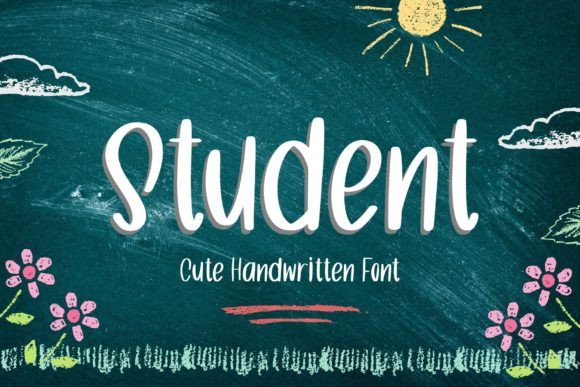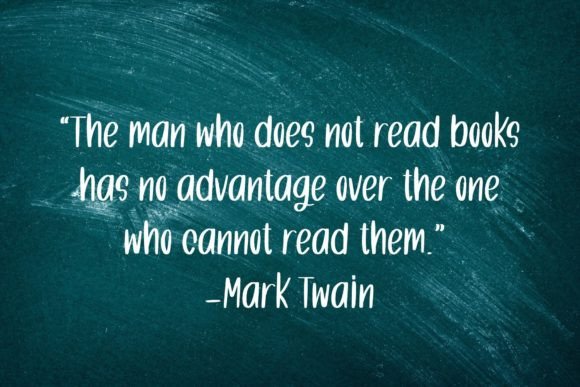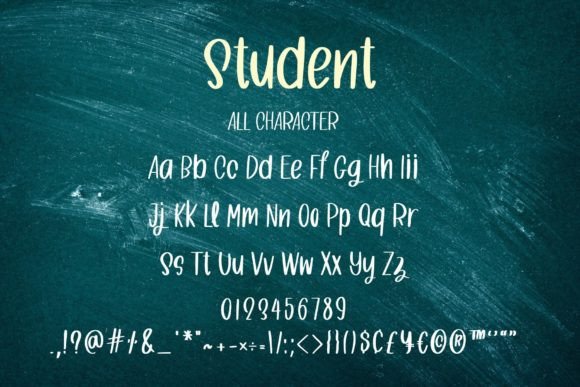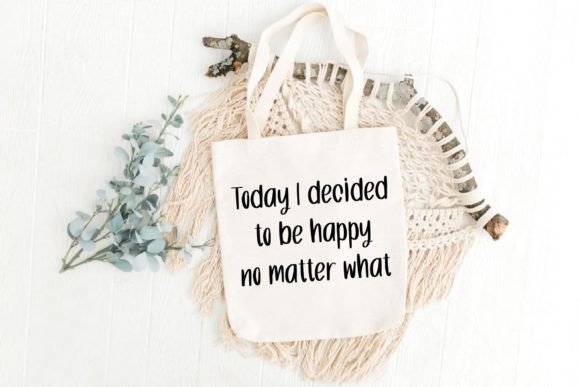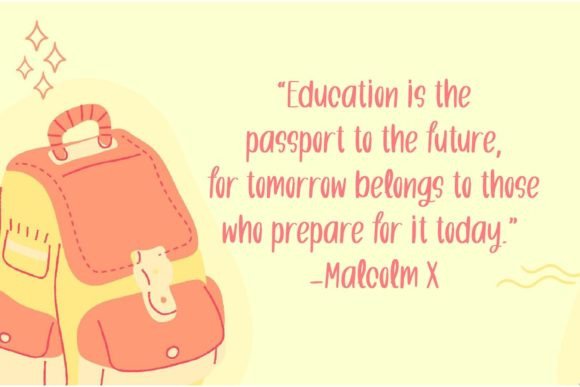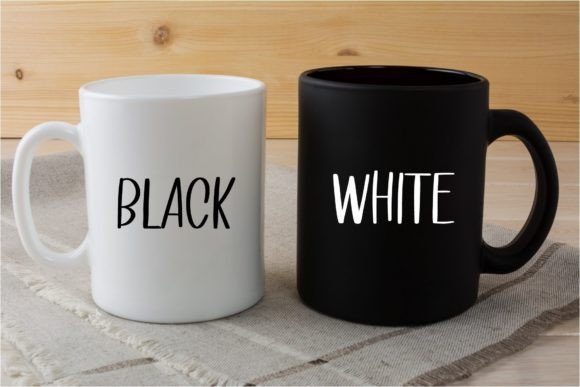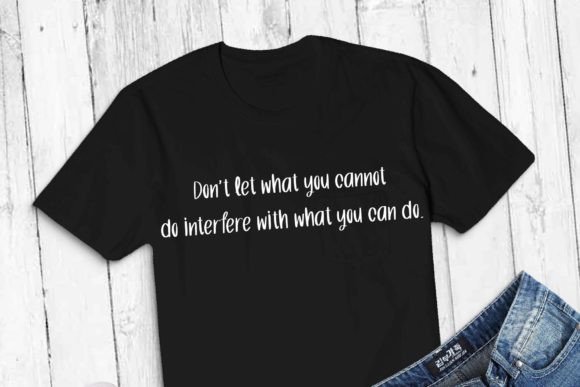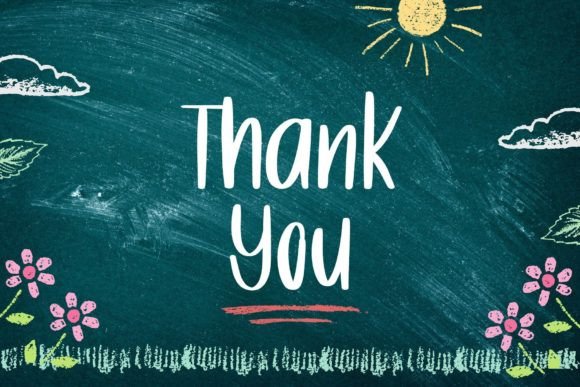
Student Font
About Student Font
“Student” is a friendly handwritten font, designed with a playful and slightly quirky character. This font is an ideal choice for a variety of creative projects, particularly well-suited for social media posts, posters, cards, and adorable greeting cards. Its charm lies in its informal and approachable style, adding a touch of personality to your designs.
The playfulness of “Student” makes it a perfect match for projects that aim to convey a lighthearted and friendly tone. Whether you’re crafting social media content to engage your audience, designing eye-catching posters, or creating heartfelt greeting cards, this font brings a sense of warmth and approachability.
The handwritten quality of “Student” adds a personal touch to your text, making it feel authentic and relatable. Its quirkiness adds a delightful element to your designs, capturing attention and creating a memorable visual impression.
In summary, “Student” is more than just a font; it’s a delightful tool that infuses a sense of friendliness and playfulness into your projects. Embrace its informal charm to create visually appealing and engaging content across various mediums.